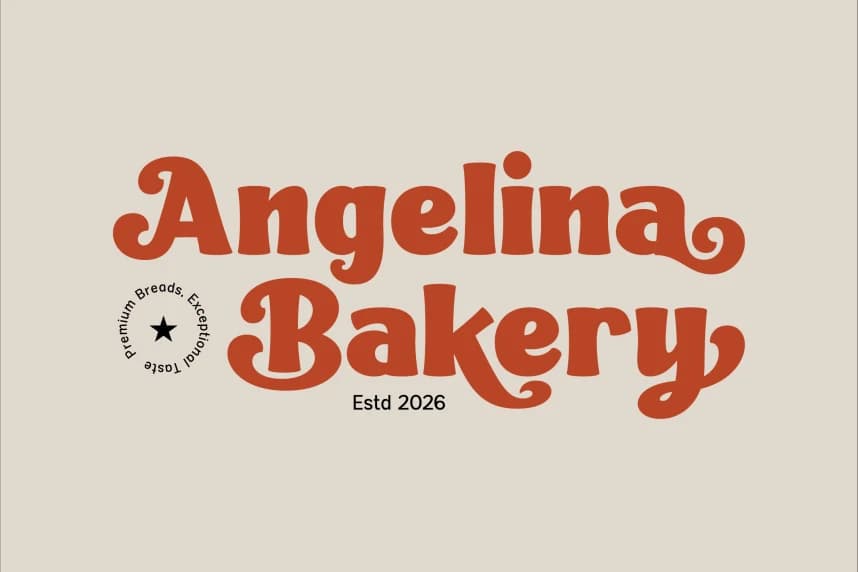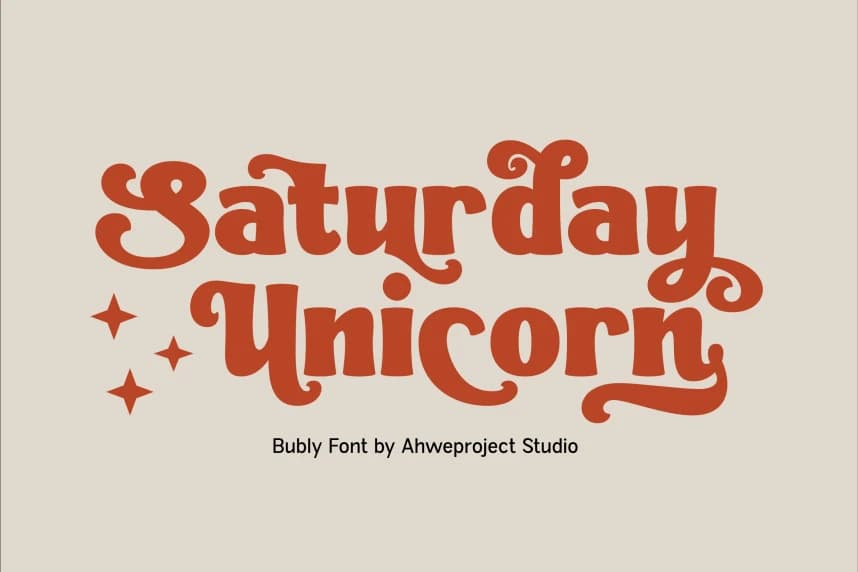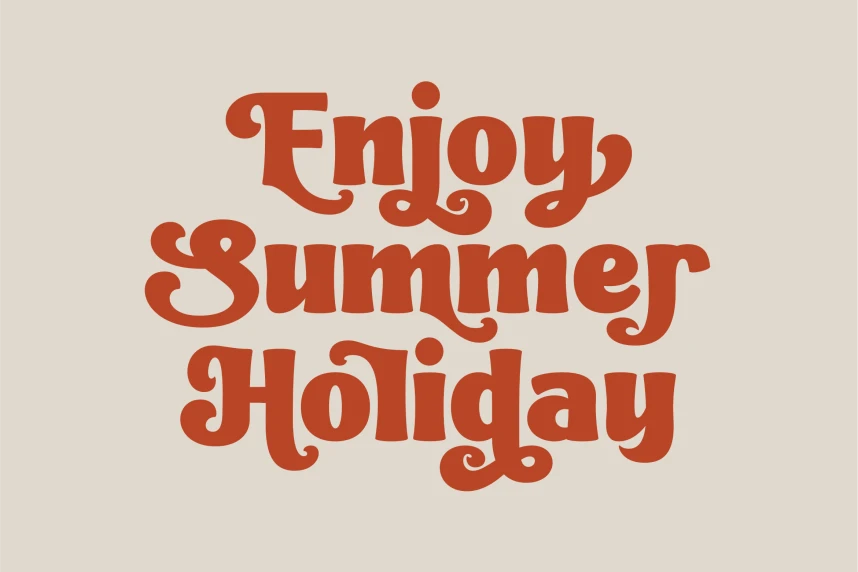
Blubly Font
Bluby Font is a bold retro serif font inspired by vintage signage, groovy aesthetics, and nostalgic typography from the golden era. With its chunky letterforms, playful curves, and eye-catching style, Bluby brings warmth, personality, and timeless charm to any creative project.